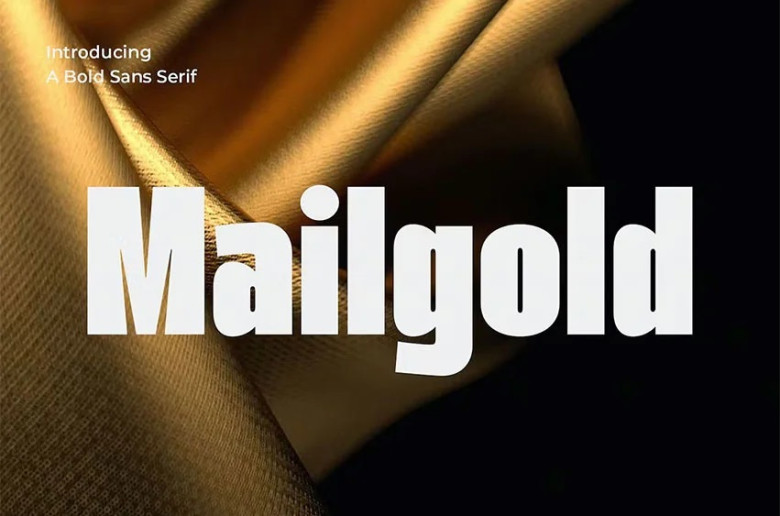
Mailgold Font
Mailgold font is an elegant sans-serif sans serif font that can be used for logos, magazines, invitations, product packaging and more.
Mailgold Sans Serif Font